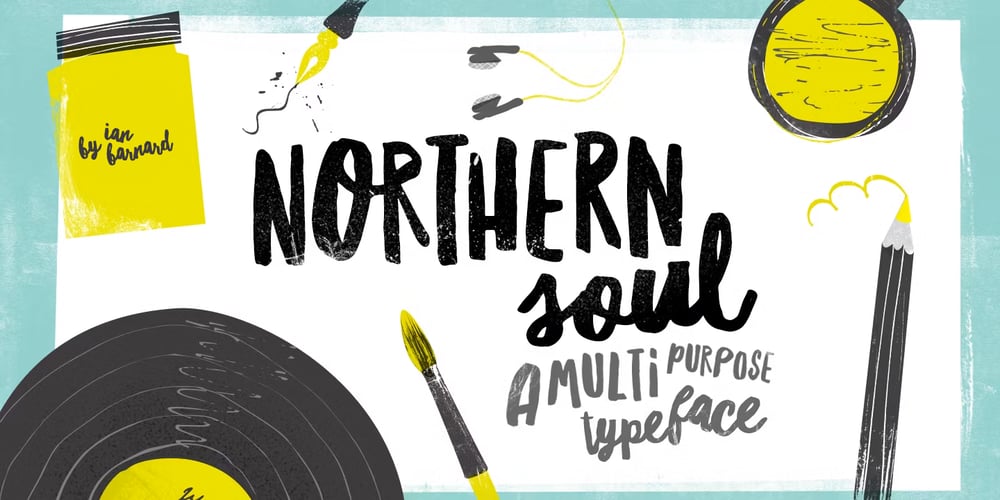
Northern Soul Font Family was designed by Ian Barnard and published by Ian Barnard. Northern Soul contains 2 styles and family package options. Ever wanted to create hand-lettered artwork but just never had the time to learn or practice the skill yourself? Say hello to Northern Soul. A brush typeface made specifically for that purpose. With two styles, caps and script, which fit perfectly together and add personality to your work.With the style of the caps, quickly get alternative versions of each letter just by using upper and lowercase letters.Let your imagination run wild.